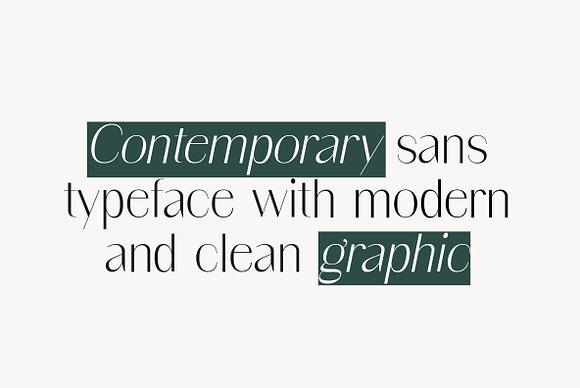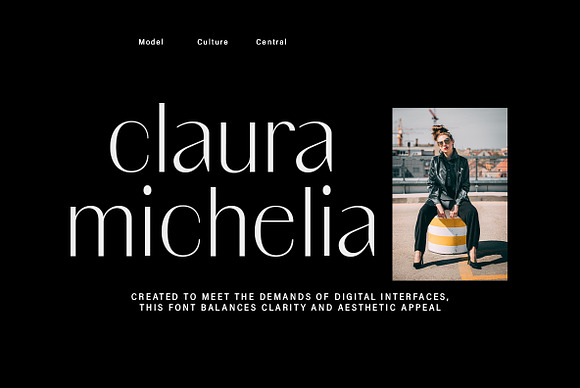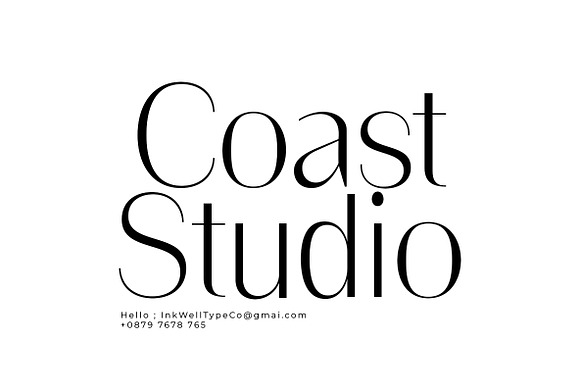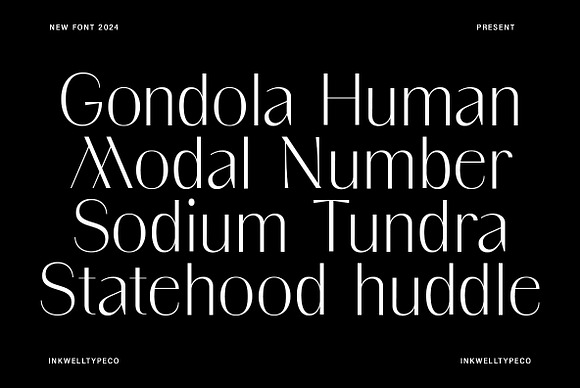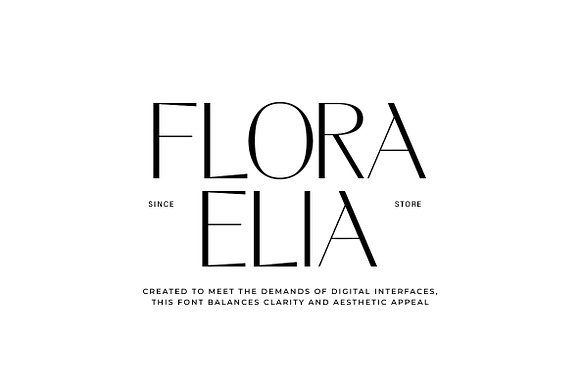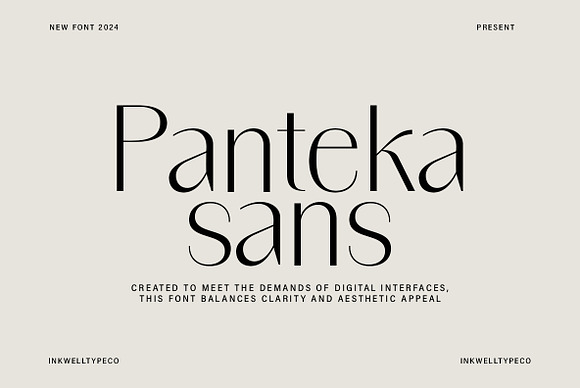
Panteka Sans Font
Panteka Sans is a sleek, modern typeface designed to meet the needs of digital interfaces. Balancing clarity and aesthetic appeal, it draws inspiration from contemporary architecture and clean geometric forms. Perfect for branding, editorial, and digital design, it delivers a strong yet elegant presence. With versatile applications, Panteka Sans shines in industries like fashion and culture, offering designers a bold and stylish tool for creative expression.